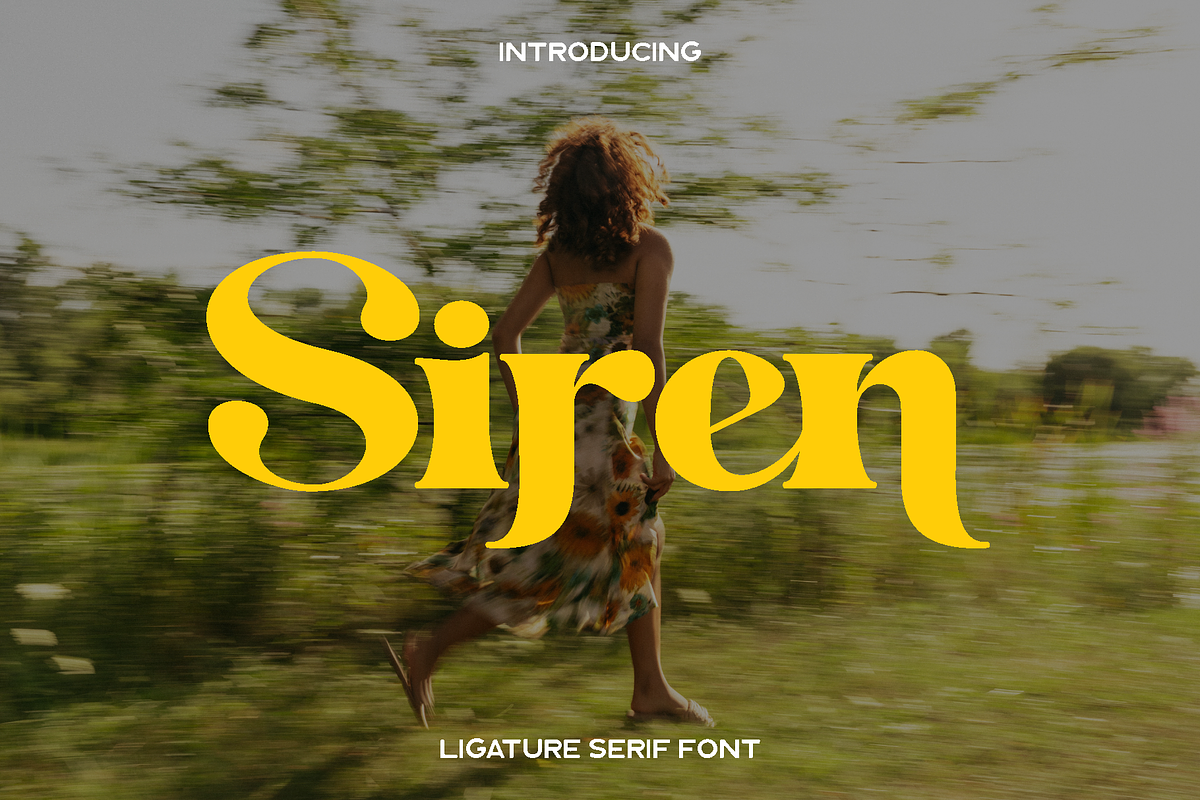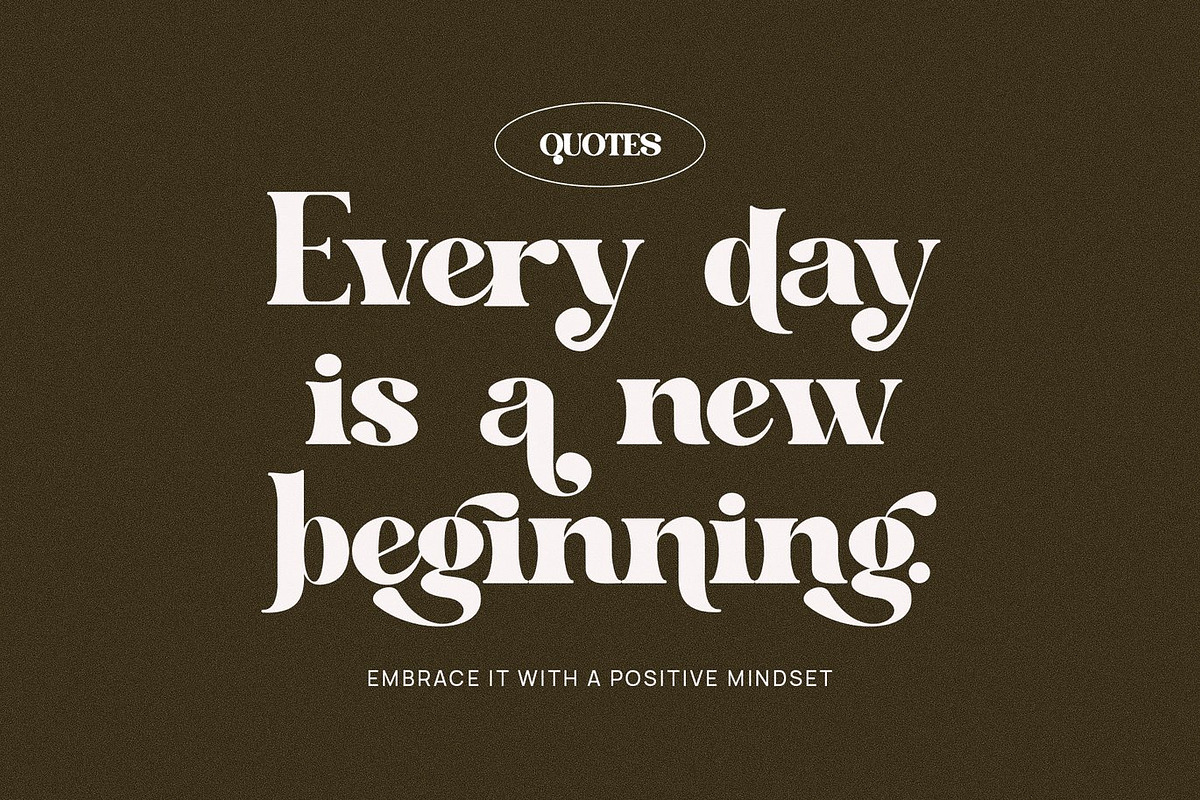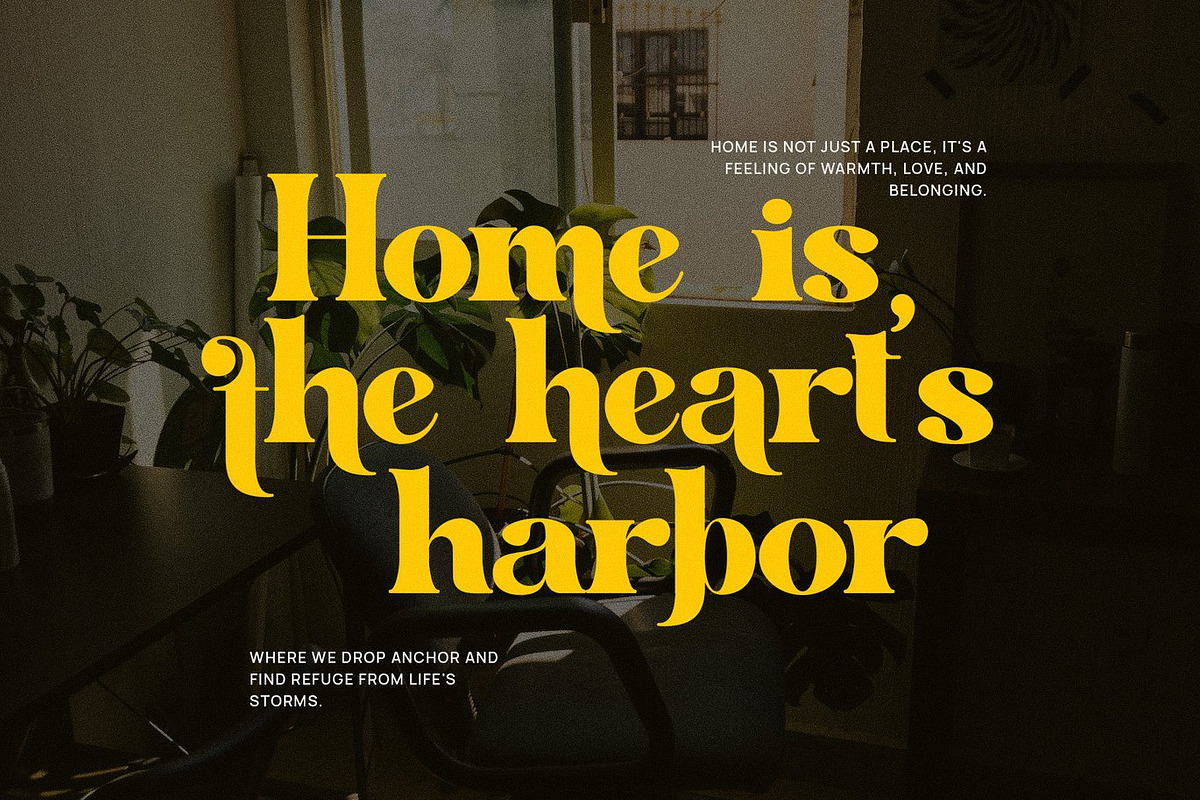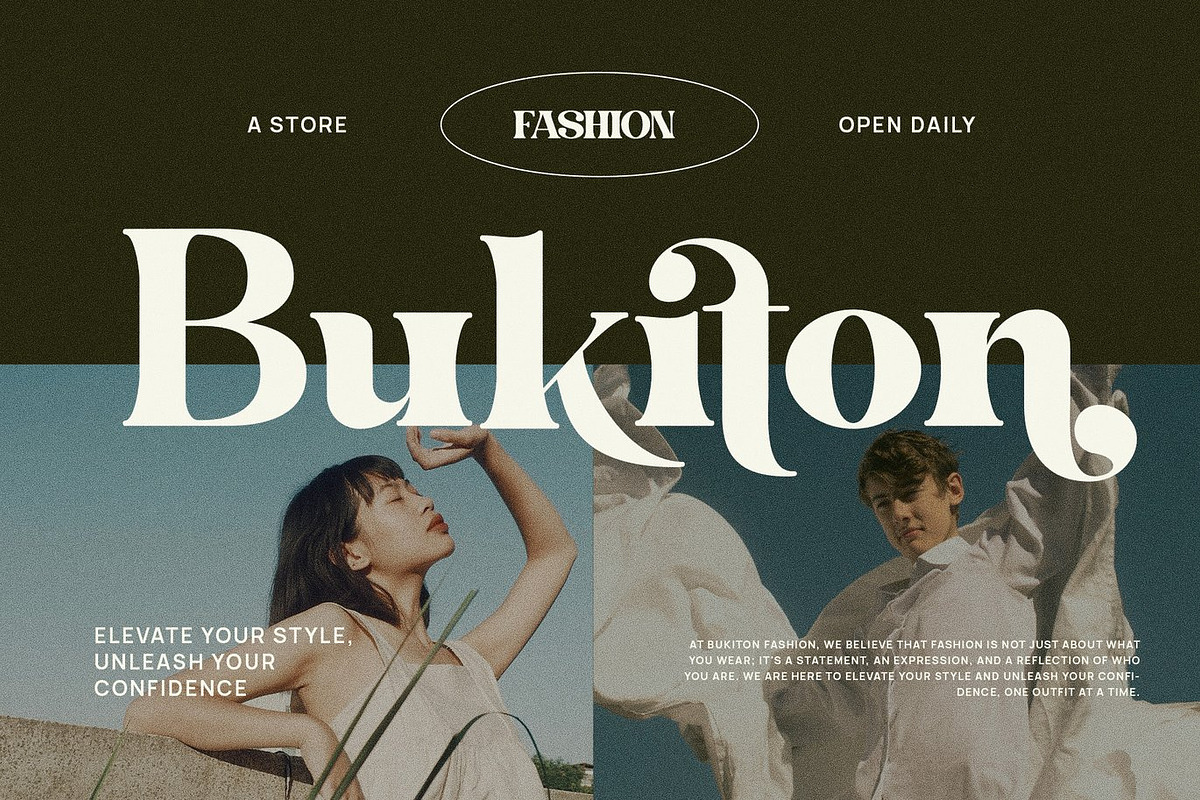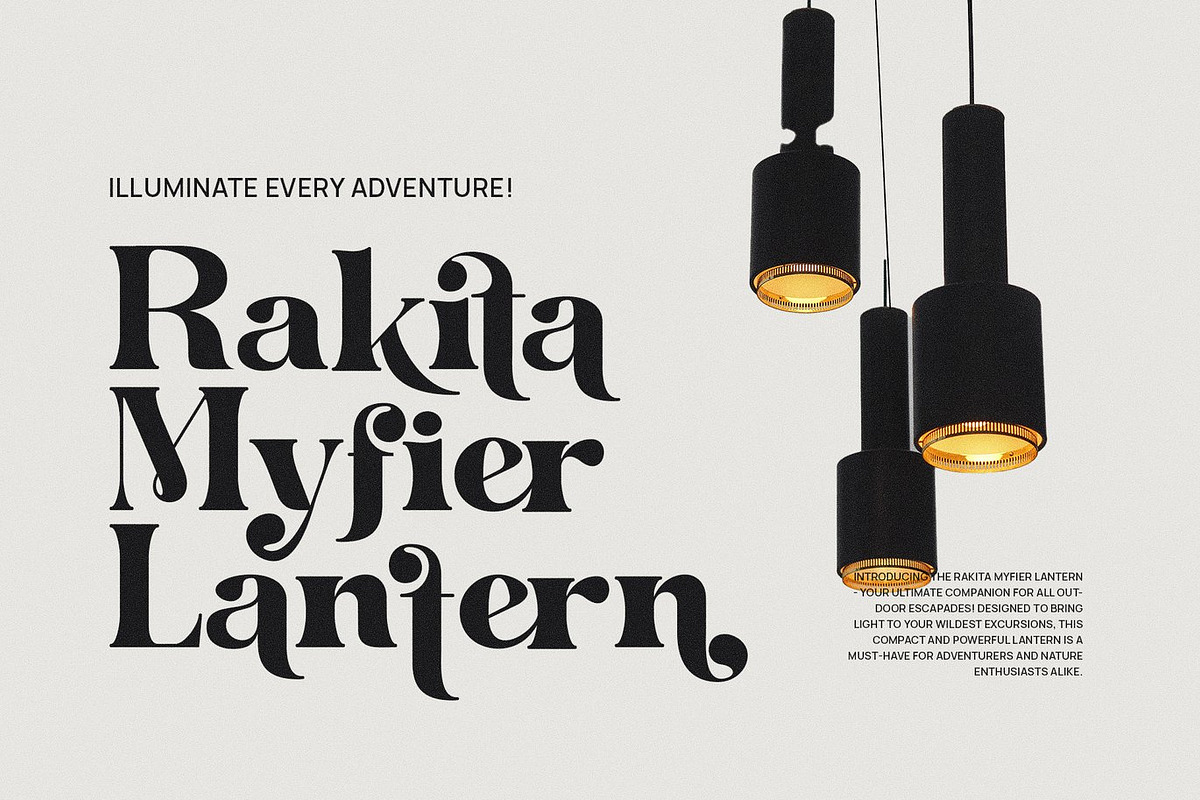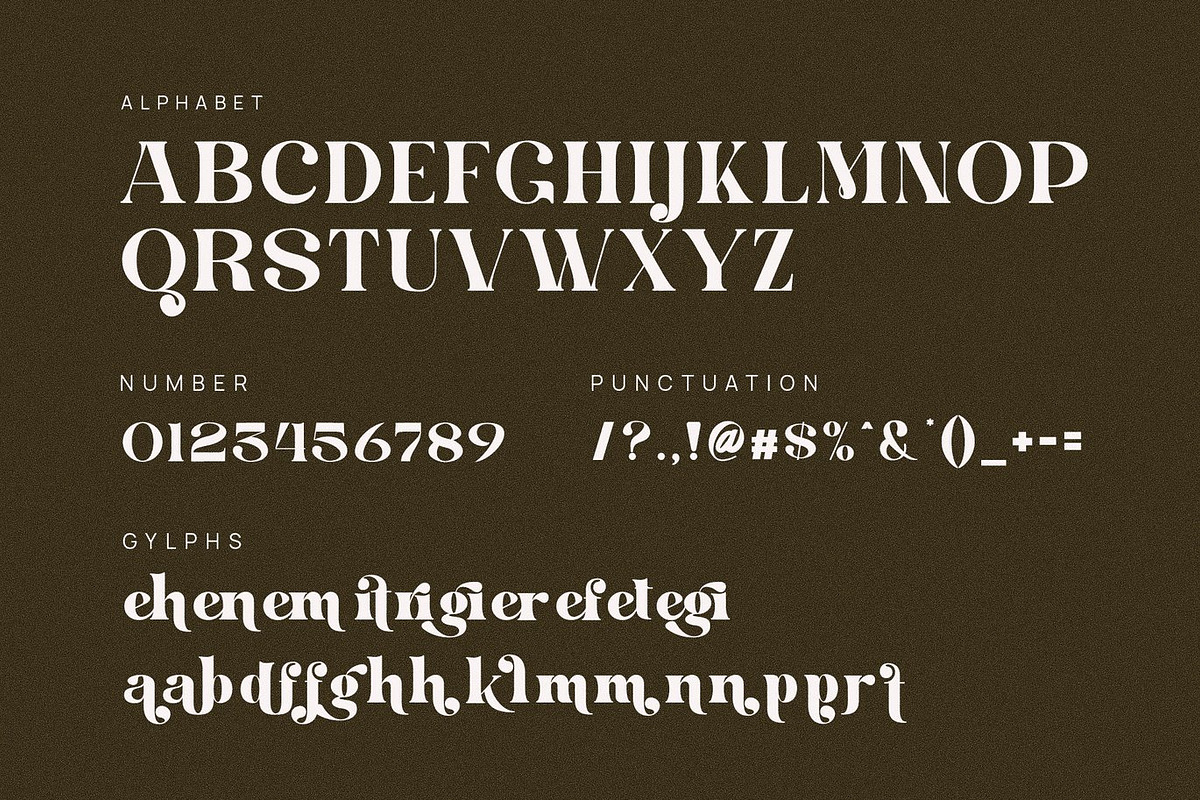
Siren - Ligature Serif
Siren is an elegant ligature serif font created to celebrate timeless beauty, refined craftsmanship, and modern luxury. Inspired by classic vintage typography and reimagined through a contemporary lens, Siren delivers a graceful and sophisticated character that feels both familiar and fresh. Its carefully balanced letterforms, smooth curves, and artistic details give every word a sense of confidence and refinement.
This font shines in high end branding, fashion editorials, luxury packaging, boutique identities, and premium digital experiences. The beautifully designed ligatures and alternates add a flowing rhythm to text, creating a distinctive visual identity that enhances logos, headlines, invitations, and magazine layouts. Siren feels elegant yet approachable, making it versatile for both bold display use and refined typographic compositions.
Siren is designed for creatives who value detail and personality in their typography. Each character is crafted to provide harmony, readability, and a handcrafted aesthetic that elevates any design. Whether used for print or digital projects, Siren brings a polished, professional, and artistic presence that leaves a lasting impression.
Siren Elegant Ligature Serif Font Features:
• Elegant ligatures and alternate characters
• Refined serif letterforms with vintage and modern appeal
• Numerals, punctuation, and accented characters